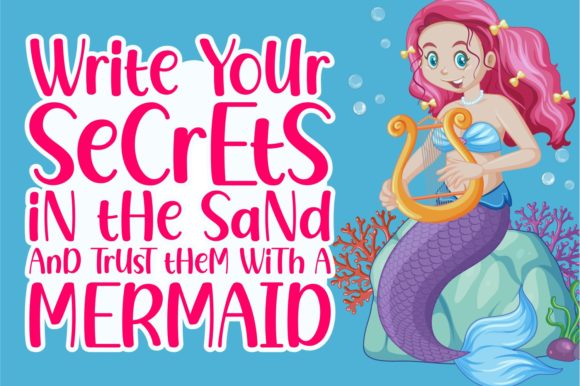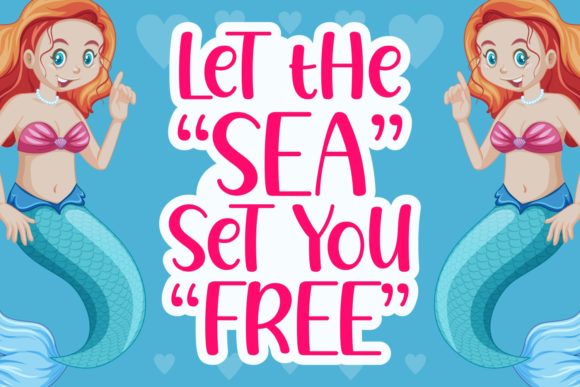
Romantic Mermaid Font
db-ku.com - Script & Handwritten -- Romantic Mermaid is a cute handwritten font. Get creative with its childlike playfulness, and use it to brighten up any kids and school project!